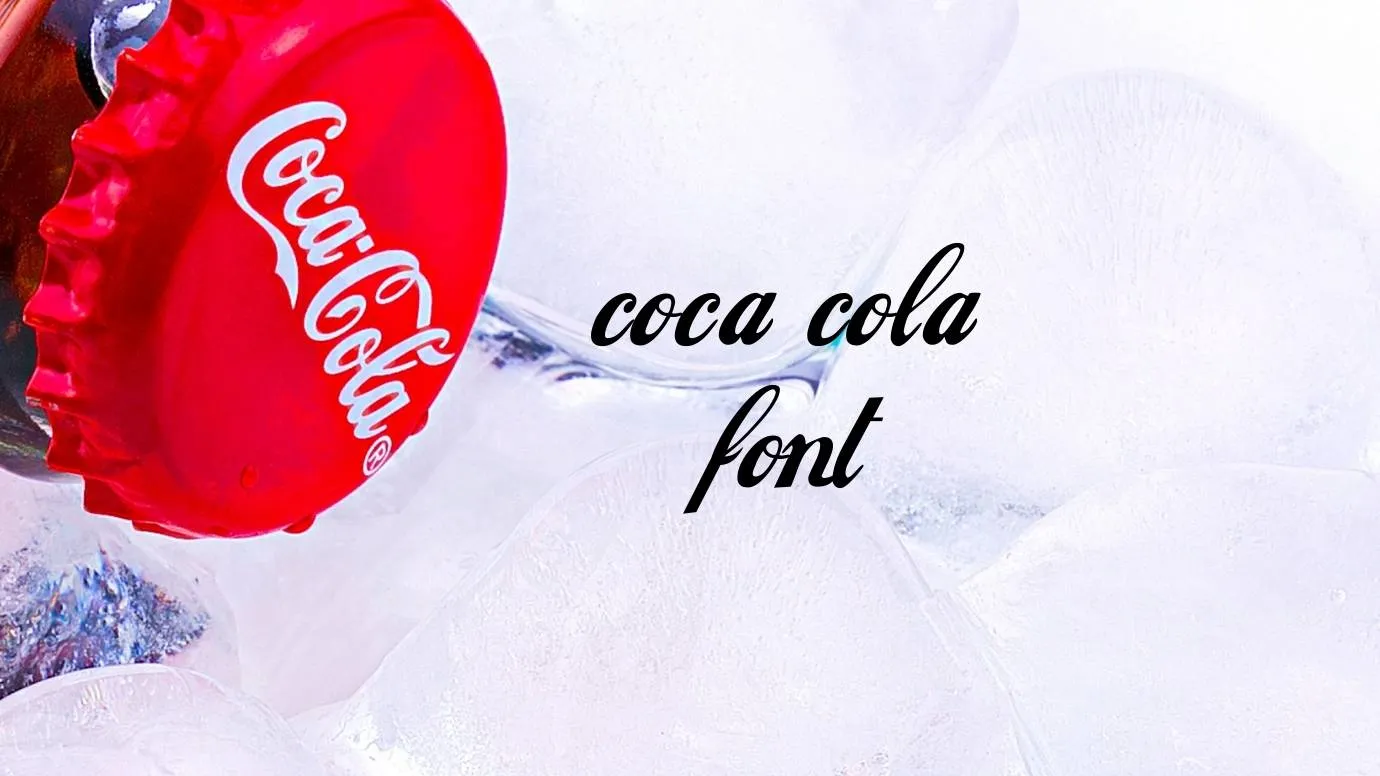
Coca-cola Font Family is a highly used soft during across the globe. The Coca Cola company manufactured this drink in the late 19th century. Even today, it is used everywhere in an excessive way.
| Name | Coca-Cola Font |
| Designer | Modern |
| Type | Frank Mason Robinson |